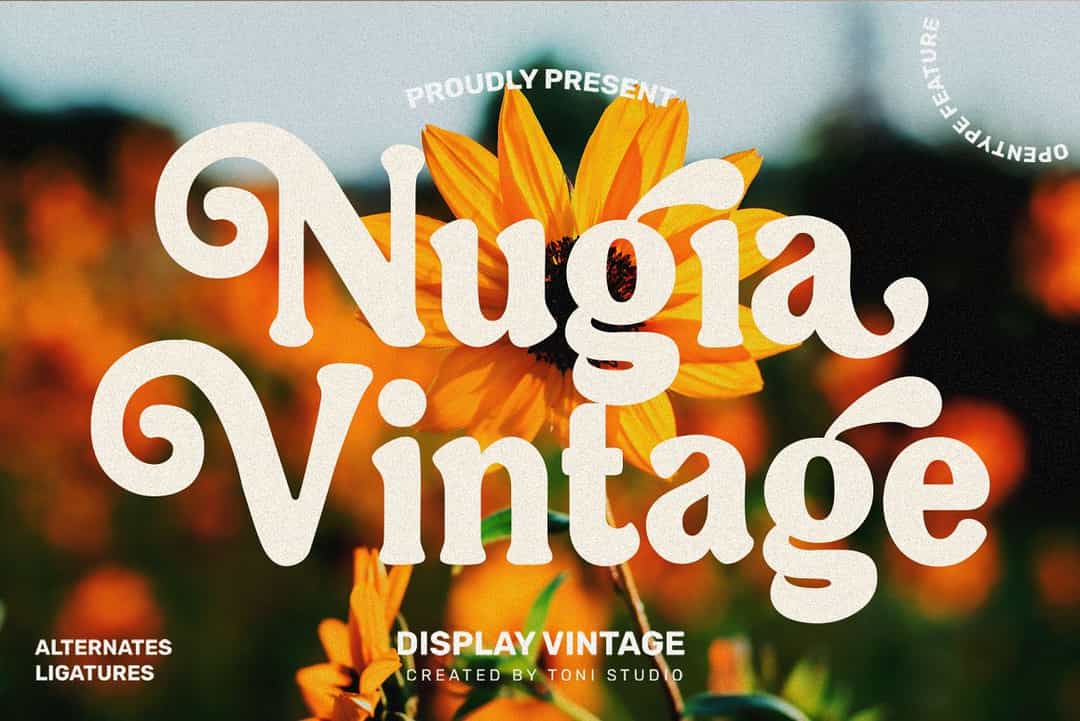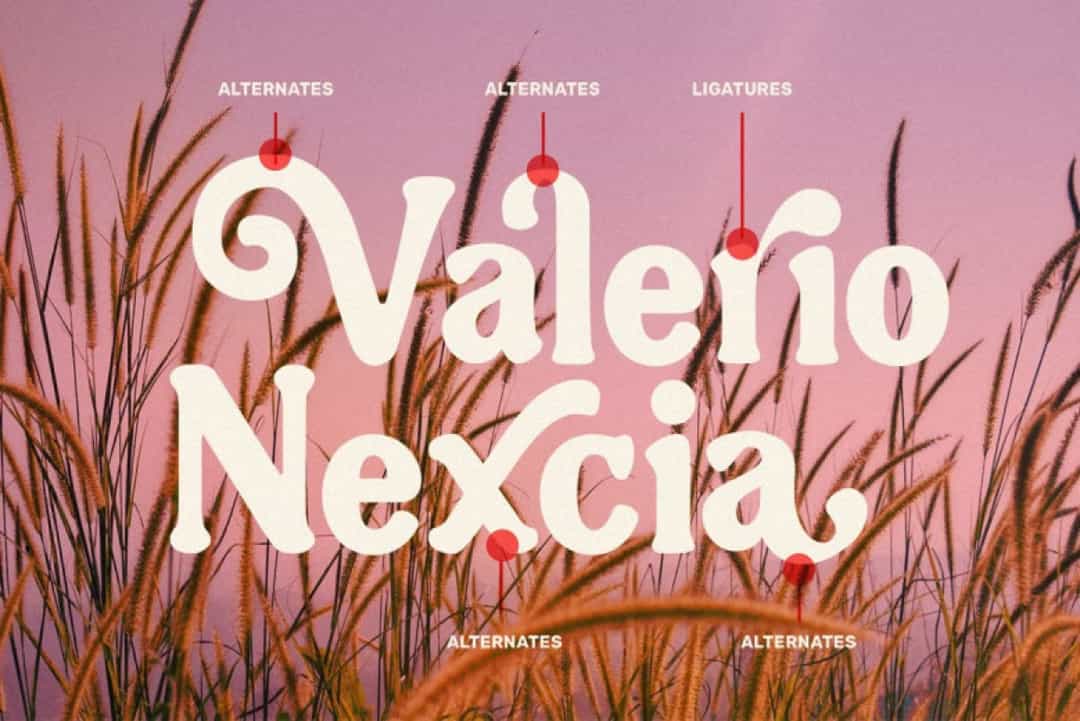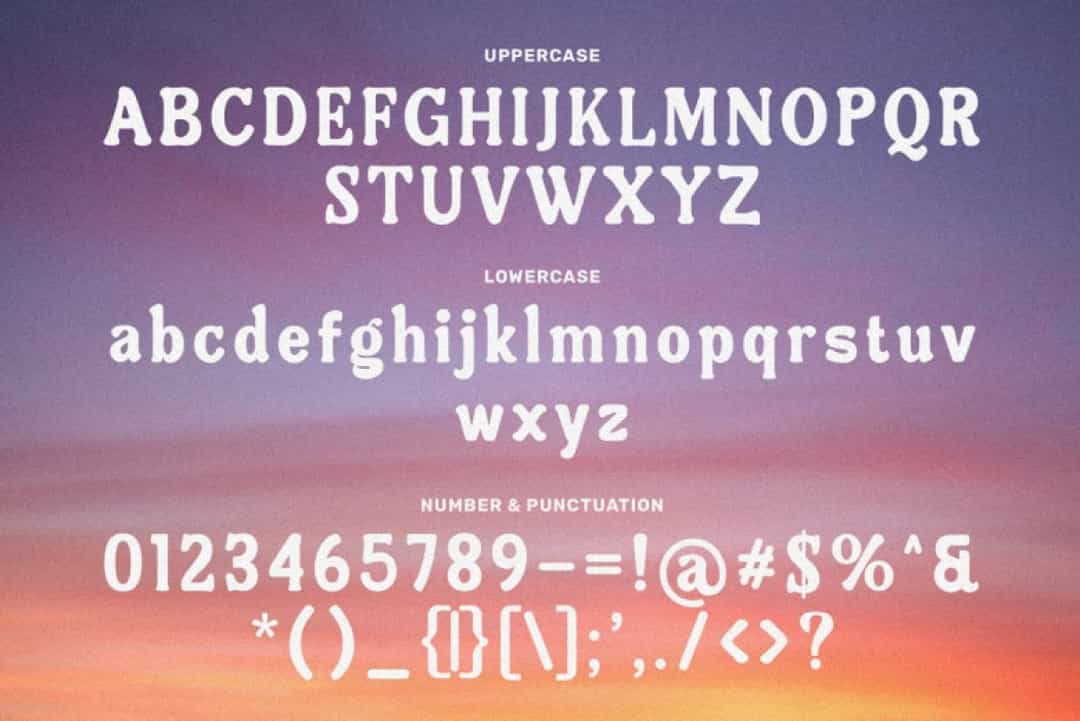
Discover Nugia Vintage Font, part of the Serif Display Vintage collection—a versatile and unique font perfect for adding a personal touch to your projects. Download it for free and enjoy crafting designs with style, from invitations to social media posts. This font is available exclusively for personal use, giving you the freedom to create without limits. Unlock your creativity with Nugia Vintage Font today!
Nugia Vintage is an eye-catching retro serif font featuring bold curly curves with 70s flair reminiscent of hippie fashion, complete with serifs to bring it back into classic retro design. Perfect for nostalgic and retro logo designs alike! Nugia Vintage includes both uppercase letters as well as multilingual numerals, punctuation marks and letters – making for a unique and memorable font experience!